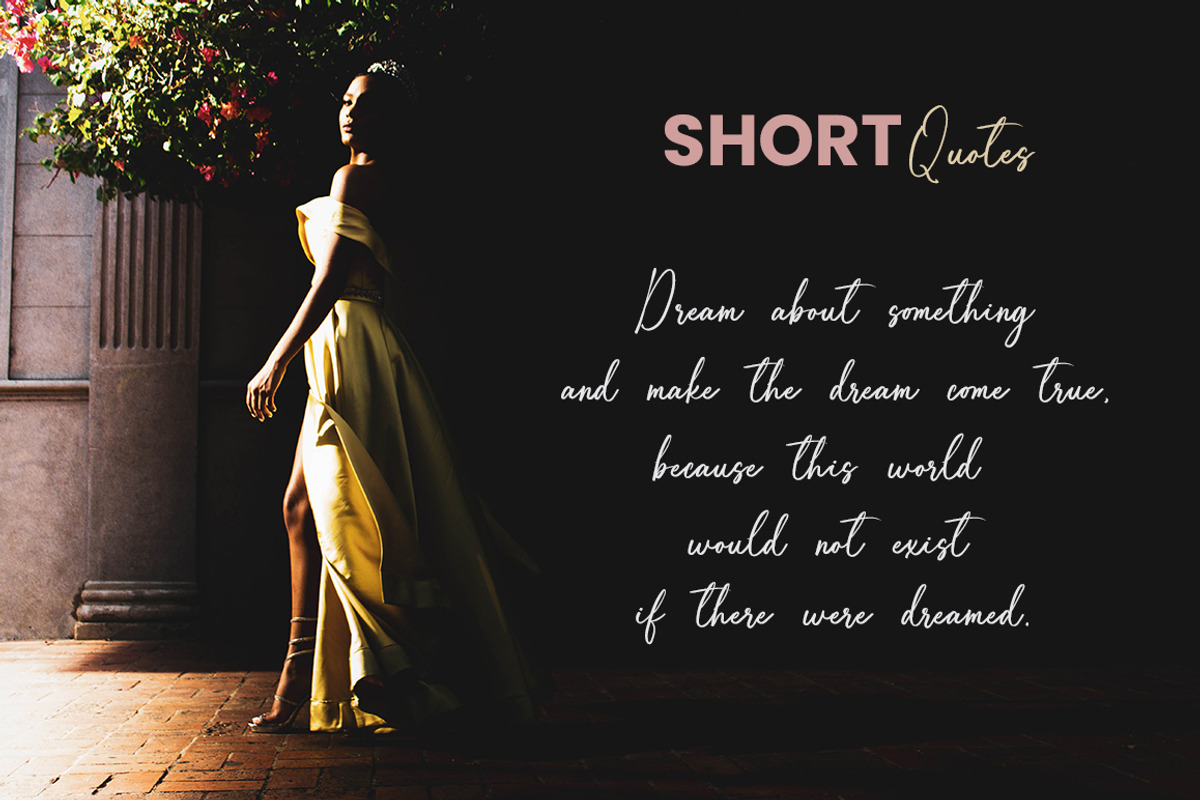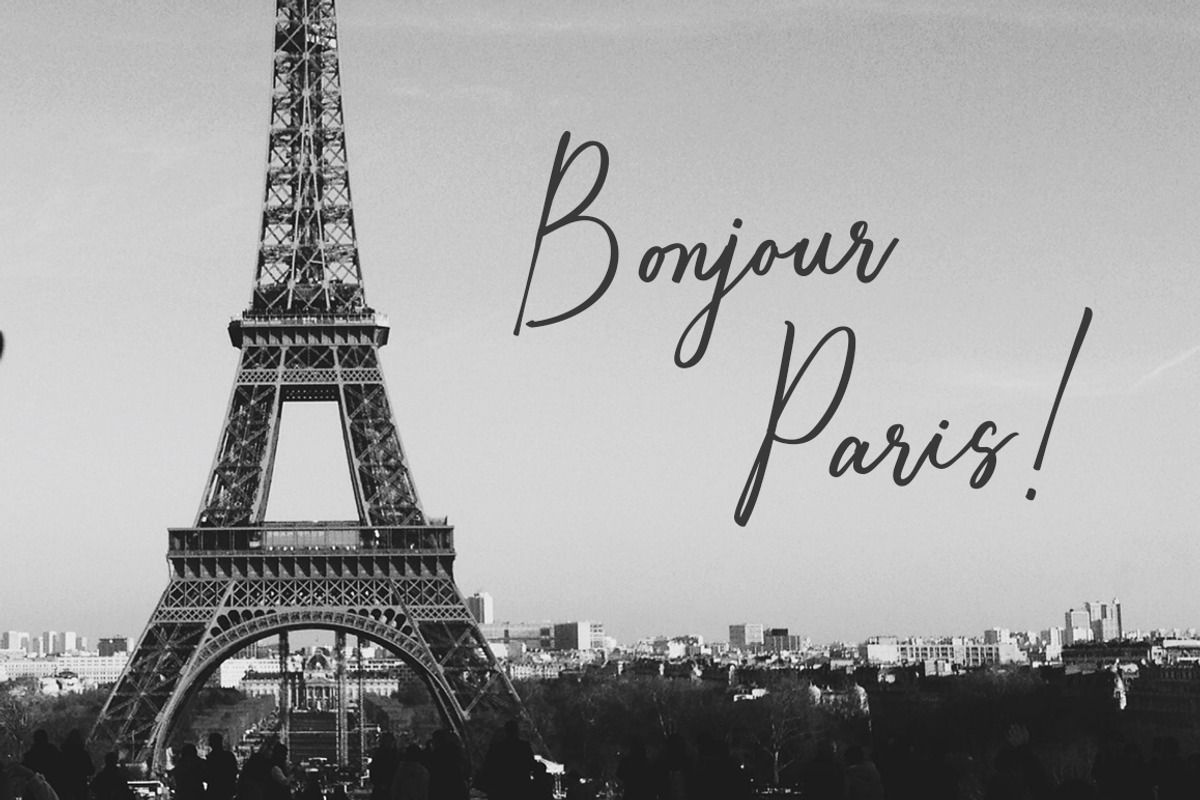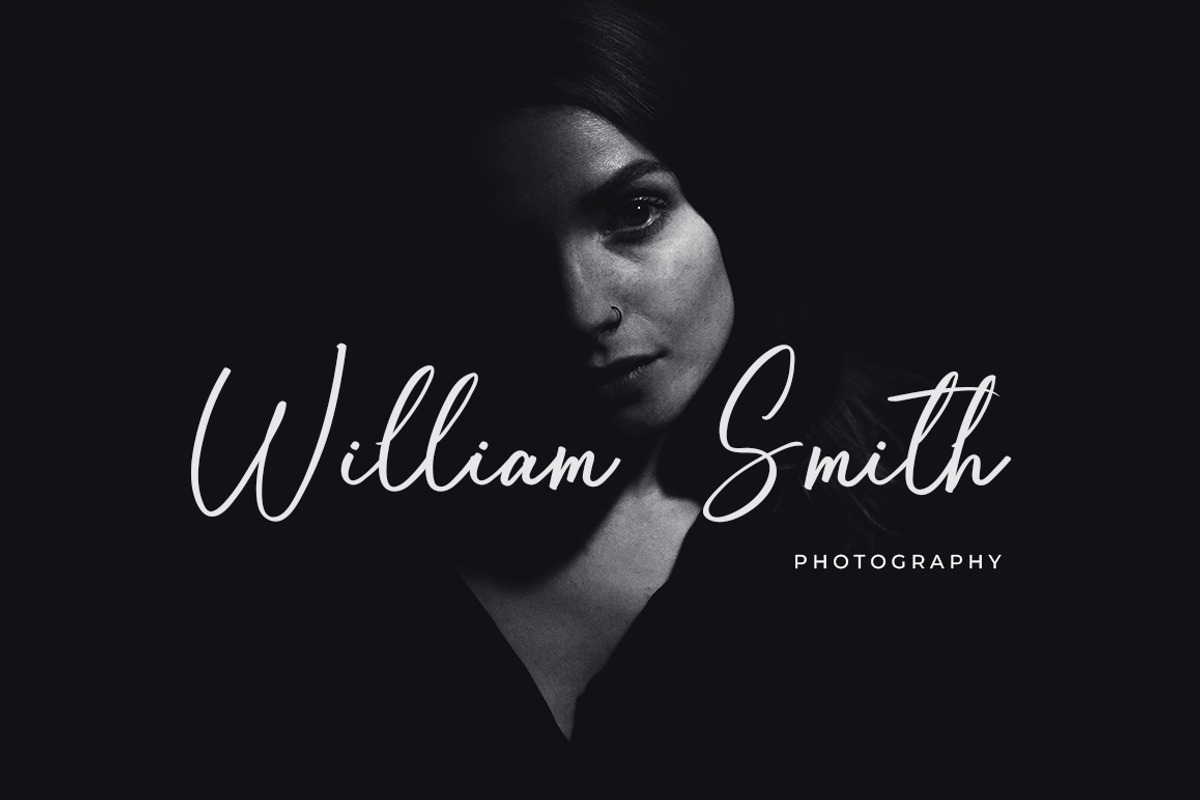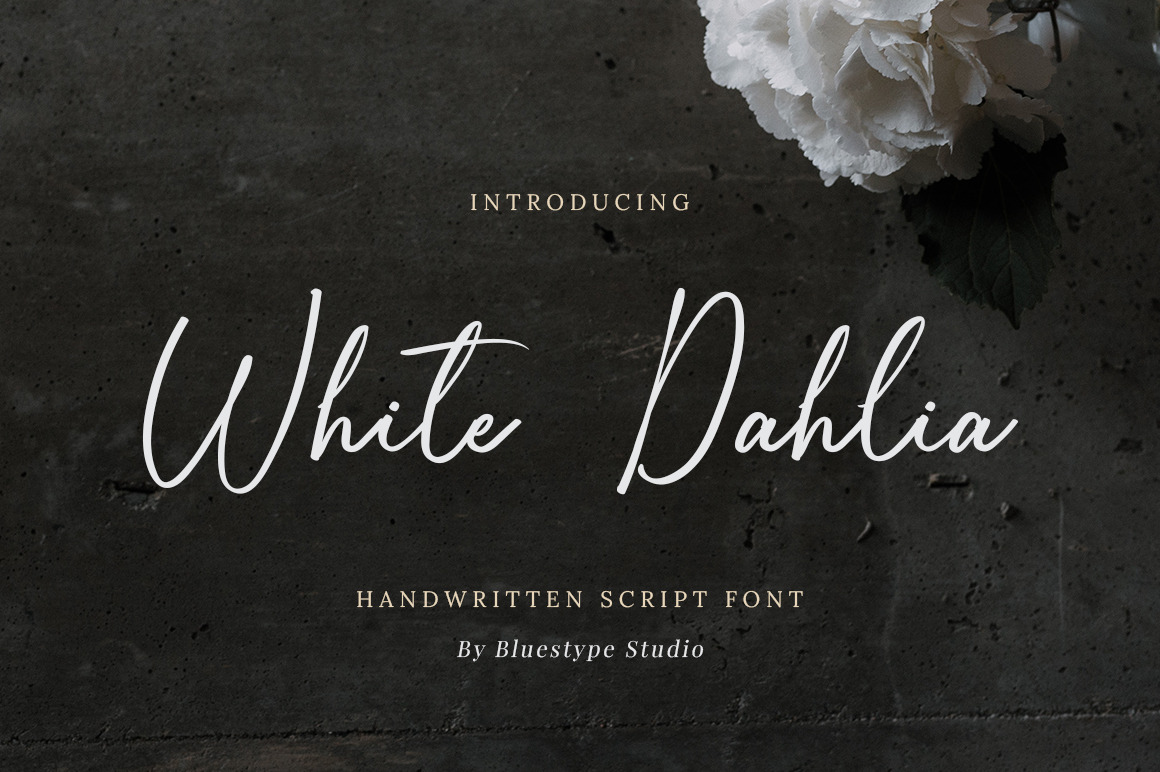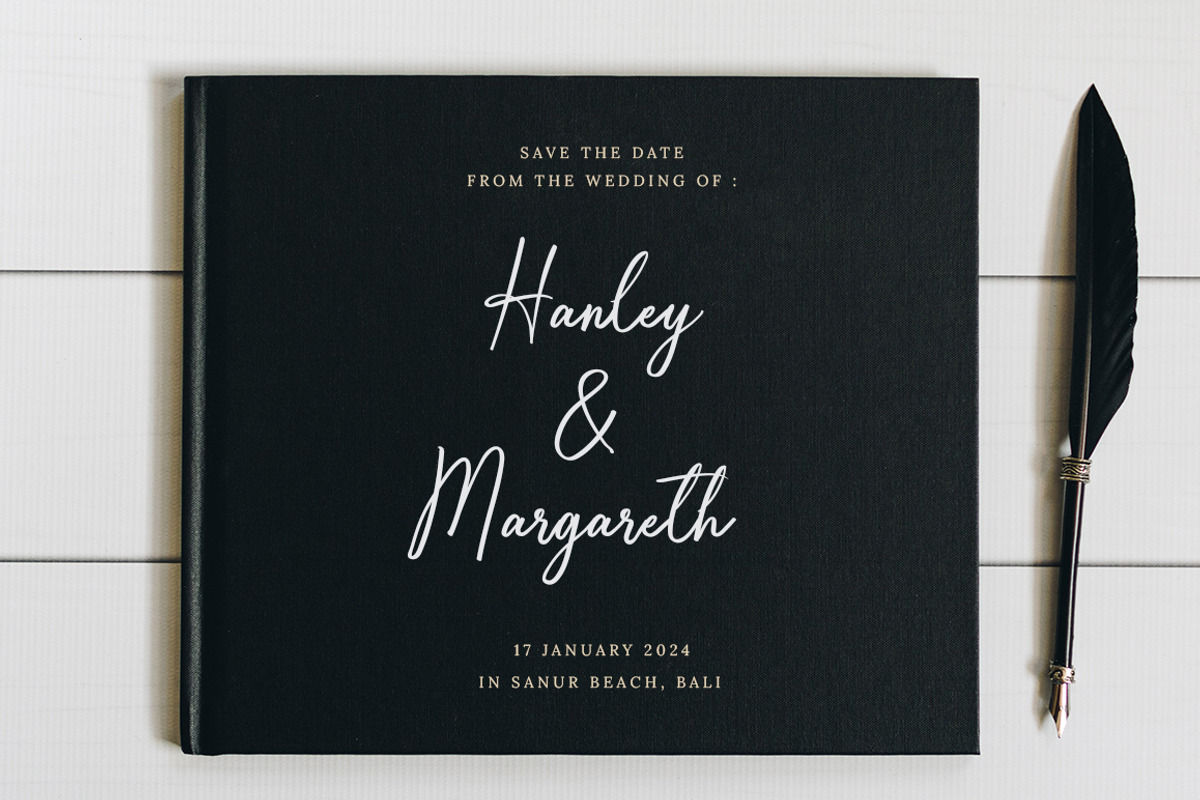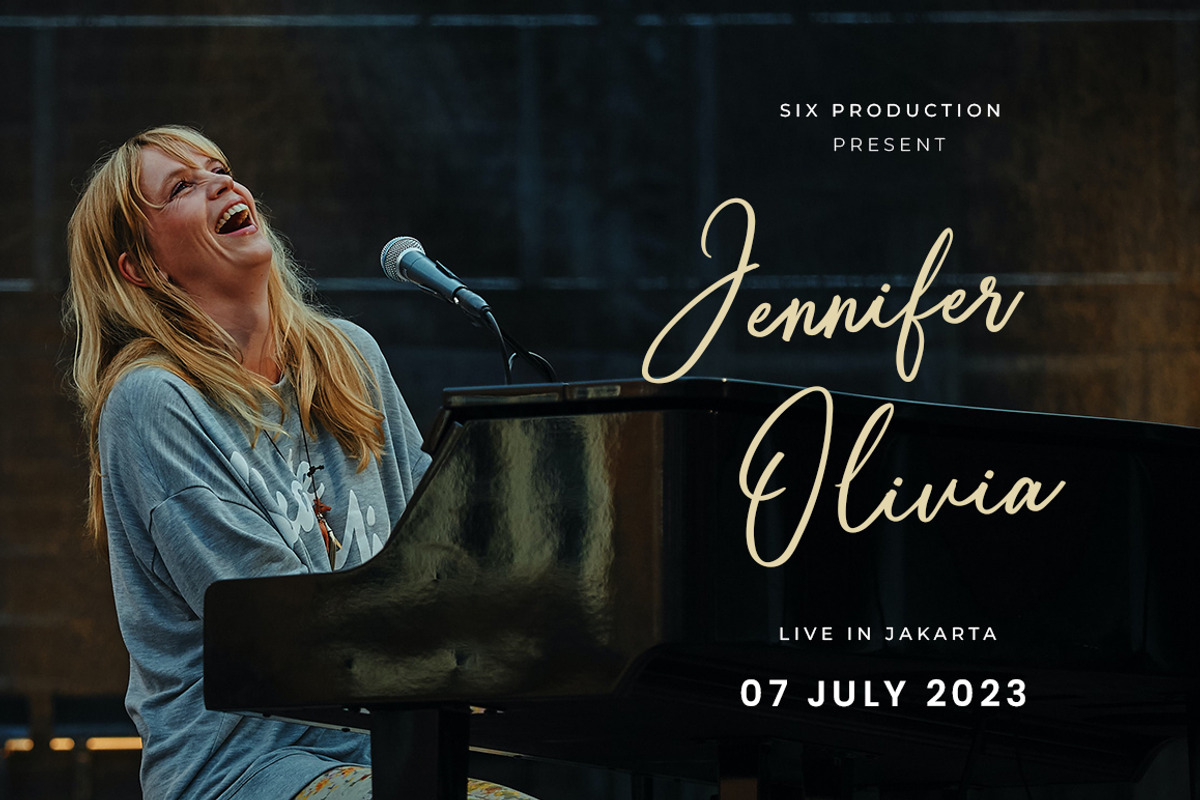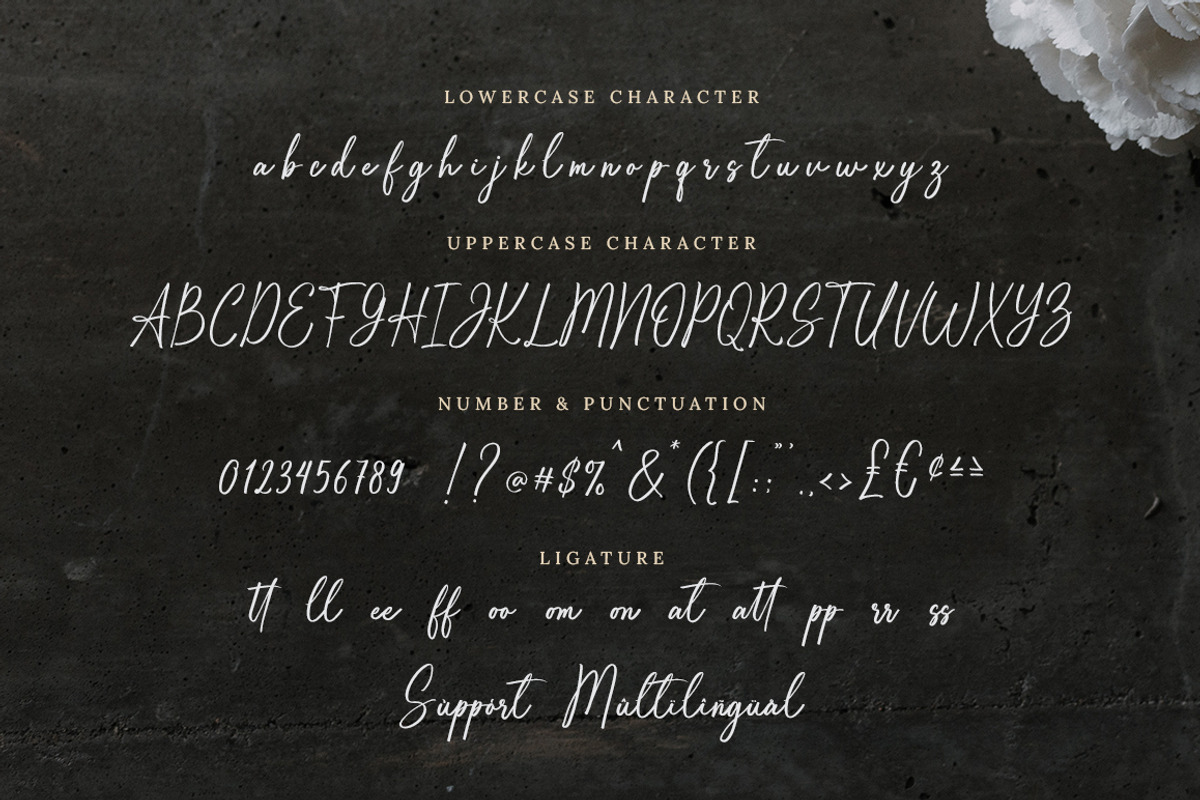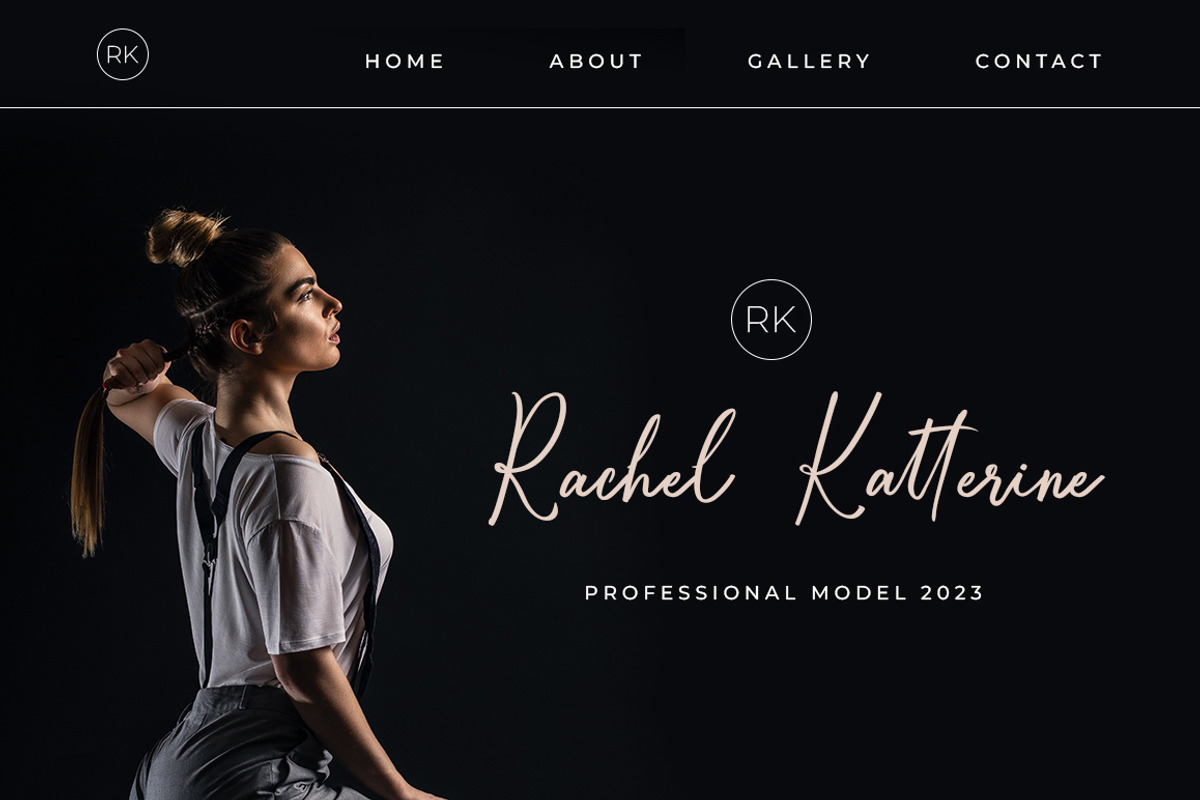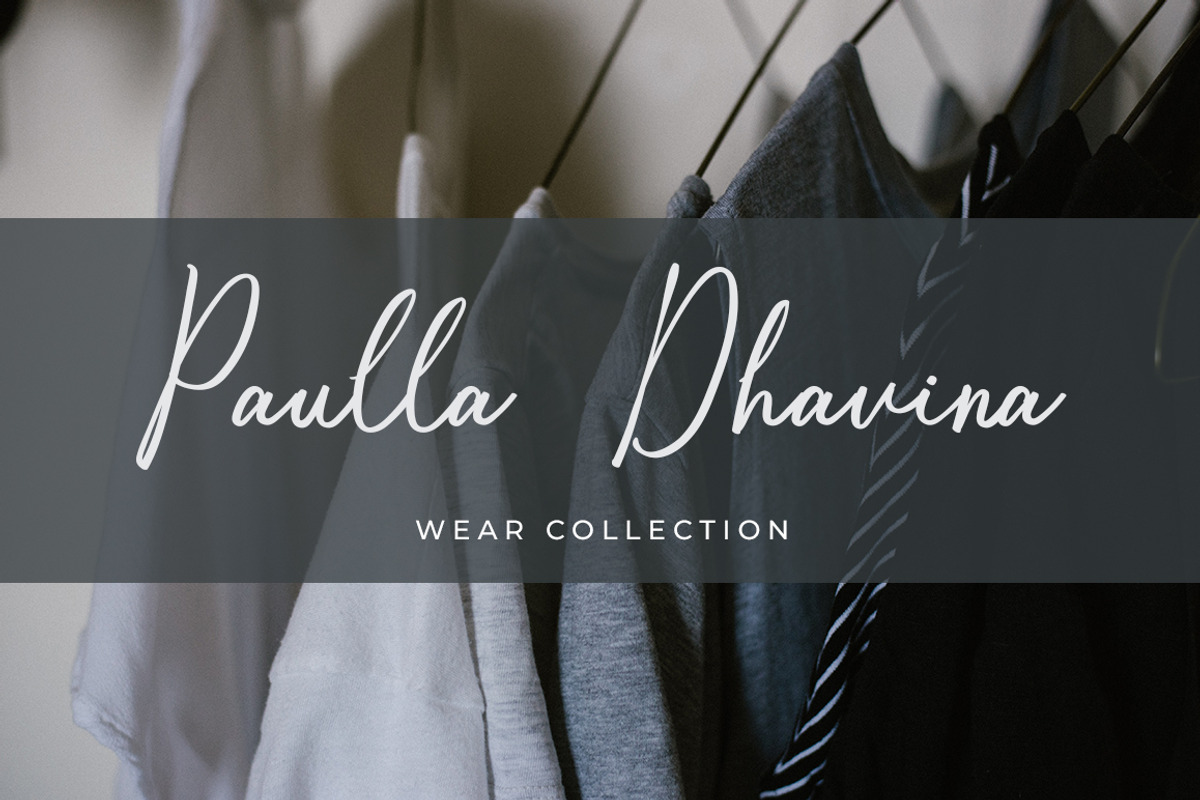
White Dahlia - Romantic Script Font
Introducing White Dahlia
White Dahlia is a dazzling handwritten font. This versatile script font has beautiful shapes for use from greeting cards to headlines and more guaranteed to add a romantic feel to your next project.
This font is suitable for use on business branding, fashion, quotes, signature, magazine, logo, social media, photography watermarks, wedding invitations.
- Number & Punctuation
- Support Multilingual Languange